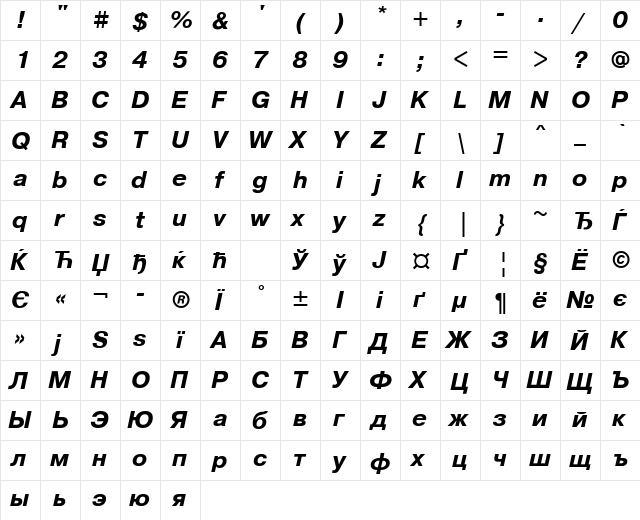
PragmaticaCTT BoldItalic Font Preview
Design Context for PragmaticaCTT Typeface
PragmaticaCTT takes a measured approach to typography — its balanced proportions and neutral character make it a reliable workhorse for both digital and print work. The dynamic lean of this cut emphasises speed and emphasis in any layout. The heavy weight commands attention and anchors typographic hierarchies.
Pro Tip: Try PragmaticaCTT for annotation and caption copy alongside an upright companion — the contrast in angle creates a dynamic but ordered typographic system.